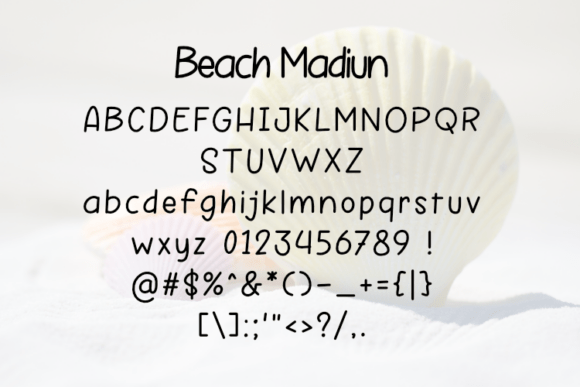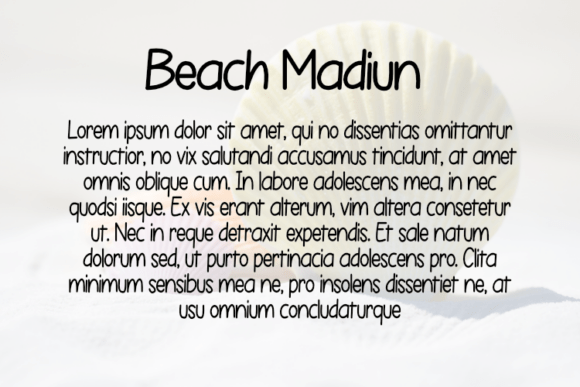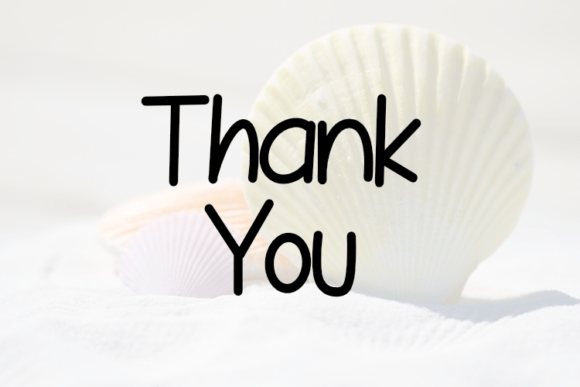
Where Creativity Meets Style: Introducing Beach Madiun Font
Have you ever sat in front of a blank canvas, staring at a blank sheet of paper, waiting for the perfect idea to strike? This is the moment when creativity and inspiration come together, and the possibilities are endless. For designers, this moment is a thrill, a chance to bring their vision to life and create something truly unique. But, what makes this moment even more special is having the right tools to bring that vision to reality.
Enter Beach Madiun Font, your go-to companion for every design need. This stylish font is perfect for fashion designers, graphic designers, and anyone looking to add a touch of elegance and sophistication to their designs. With its versatility and compatibility with all design software, Beach Madiun Font is a valuable addition to any designer’s toolkit.
Beach Madiun Font Key Features
- Unique Characteristics: Beach Madiun Font features a unique, handwritten style with a relaxed and casual feel, making it perfect for creative projects and designs that require a personal touch.
- Font Family: The font family includes a range of styles, from regular to bold, italic, and bold italic, offering flexibility and versatility for different design applications.
- Font Weight: The font weight varies across different styles, ranging from light to bold, allowing designers to choose the perfect weight to suit their design needs.
Beach Madiun Font Review
First impressions of Beach Madiun Font are great – it’s a beautiful, modern sans-serif font that’s perfect for creating a beachy, laid-back vibe. ✨ The rounded edges and subtle curves give it a friendly, approachable feel that’s sure to resonate with users. ✨ I love how it works well for both body text and headings, making it a versatile choice for any design project.
- Legibility: Beach Madiun is highly legible, even at small font sizes, making it perfect for digital designs like websites and mobile apps.
- Style: The font’s unique style is a great asset for creating a brand identity that stands out from the crowd.
- Character set: The font includes a wide range of characters, including international ones, which is a big plus for designers working on global projects.
However, there are some limitations to consider. ⚠️ One of the main drawbacks is that the font can feel a bit too casual for formal or professional designs. Additionally, some users may find the rounded edges and curves too playful or childish. ⚠️
Overall, I think Beach Madiun is a great font for designers looking to create a relaxed, beachy vibe. While it may not be the best choice for formal designs, it’s perfect for projects that require a fun, laid-back feel. With a little careful consideration of the design context, Beach Madiun can be a fantastic addition to any designer’s toolkit.
Beach Madiun Font Practical Application Guide
For best results, use Beach Madiun Font for titles and headings to add a touch of elegance to your design.
For best results, use Beach Madiun Font for headings and titles to add a touch of sophistication to your design.
For best results, use Beach Madiun Font for headings and titles to add a touch of elegance to your presentation or document.
Tips for Getting the Most Out of Beach Madiun Font
1. Use Beach Madiun Font for titles and headings to add a touch of elegance to your design.
2. Combine Beach Madiun Font with other elegant fonts for a sophisticated look.
3. Experiment with different font sizes and styles to add visual interest to your design.
Beach Madiun Font is perfect for:
2. Luxury branding and marketing materials.
3. High-end product packaging and labeling
Alternatives to Beach Madiun Font
Lato is a popular sans-serif font that is highly legible and versatile. It is suitable for a wide range of applications, from body text to headings, and is particularly well-suited for digital use. Compared to Beach Madiun Font, Lato is more geometric and modern, with a more subtle flair.